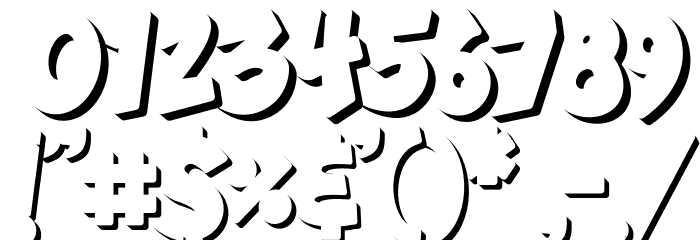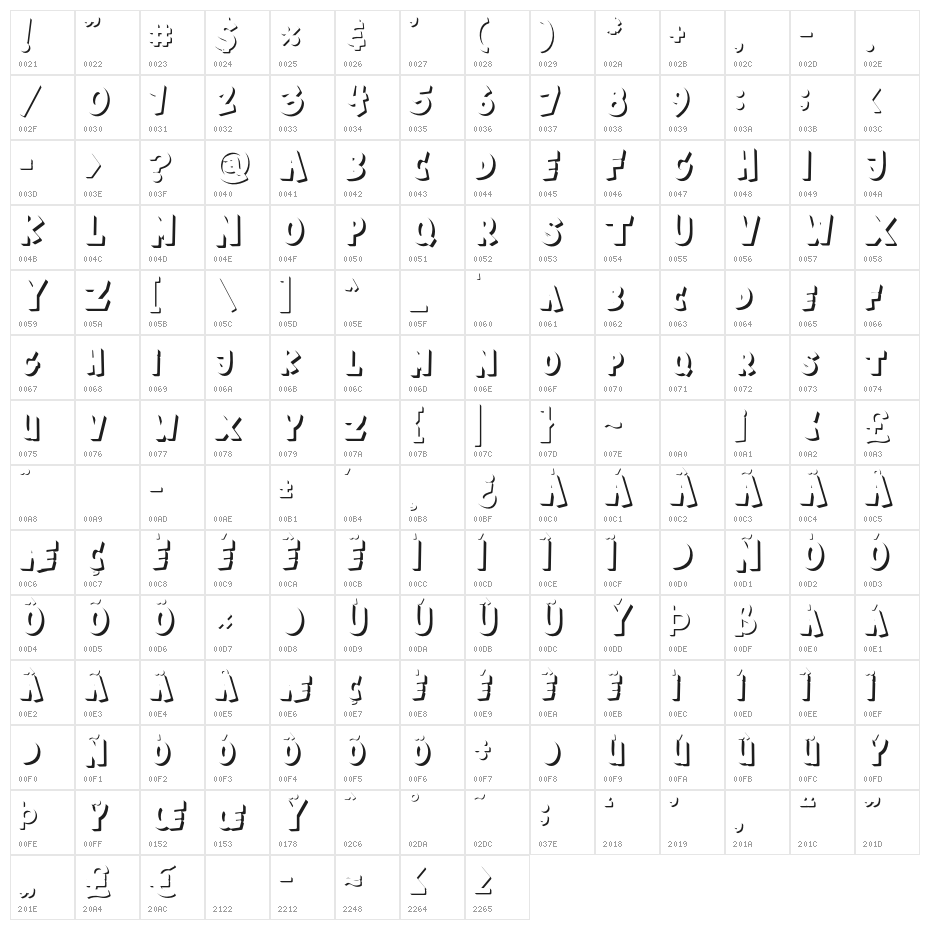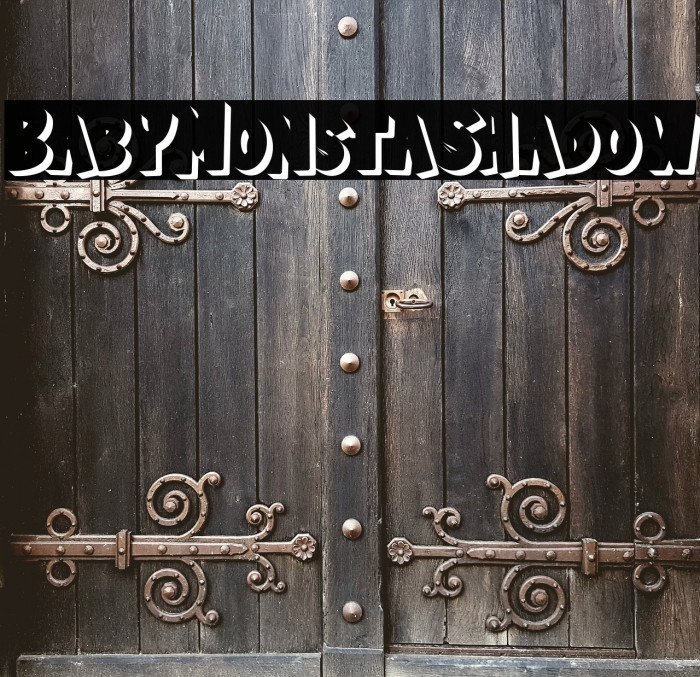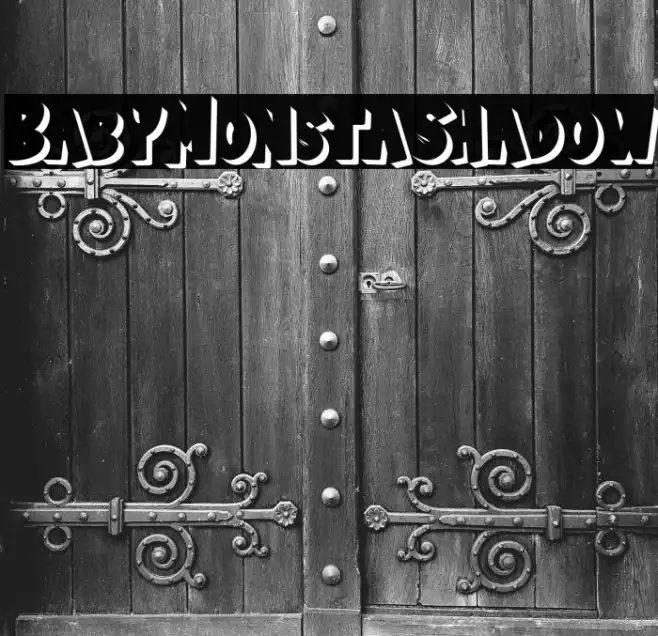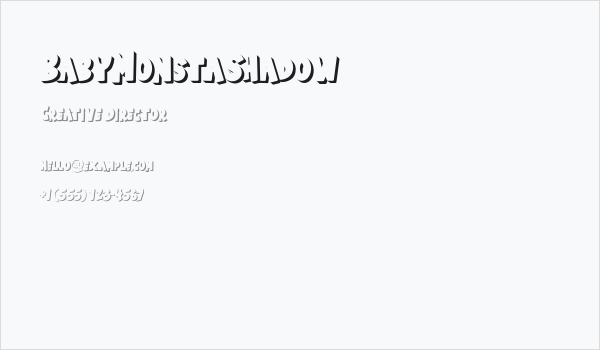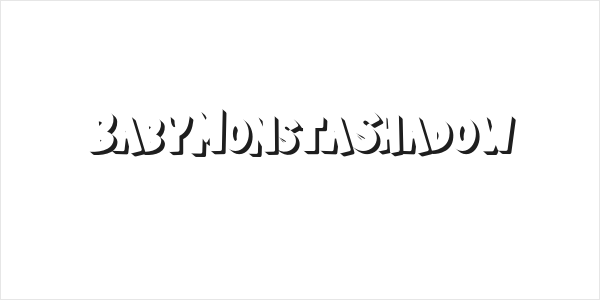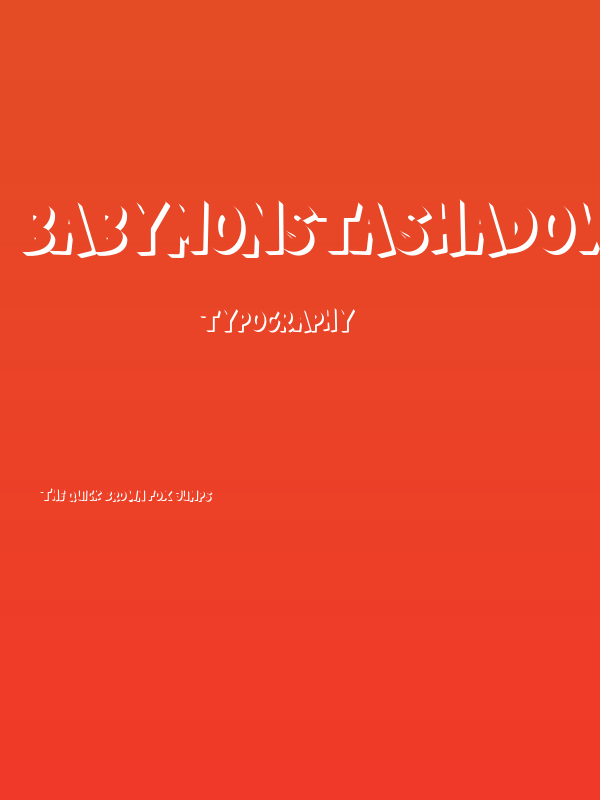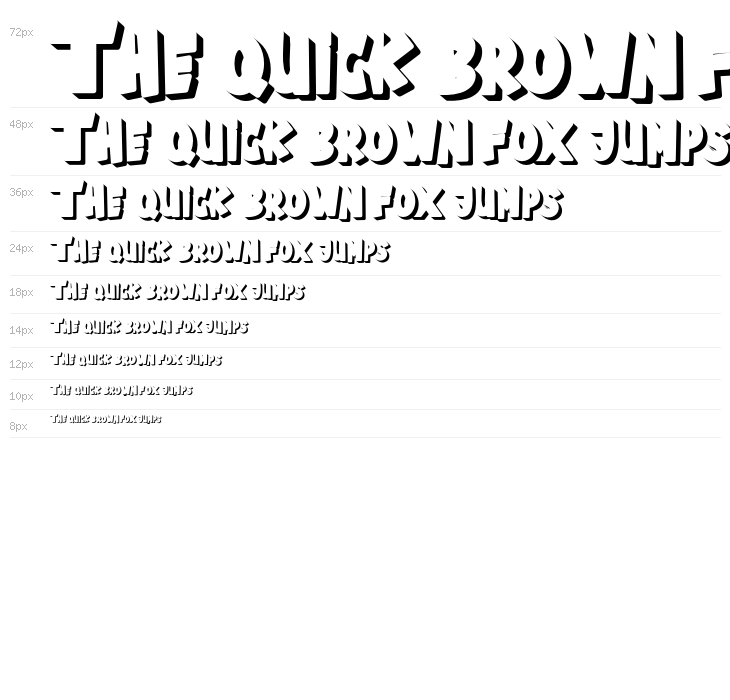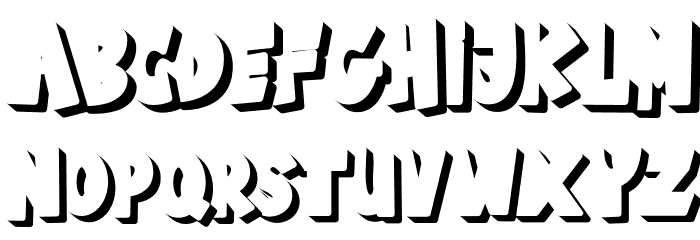
BabyMonstaShadow Font
This playful and bold font features a shadow effect that gives it a three-dimensional appearance. The characters are chunky and have a cartoonish style, making them stand out with a fun and energetic vibe. The uppercase and lowercase letters maintain a consistent style, with exaggerated curves and angles that add to the dynamic look. Numbers and special characters are equally bold, ensuring uniformity across all glyphs. The font's shadow effect enhances its visual impact, making it ideal for eye-catching designs.
Overall StylePlayful, Cartoonish, Energetic
Use CaseHeadlines, Posters, Branding
Proposed ProjectsIdeal for children's book covers, playful branding, posters, and any design needing a fun, energetic touch.